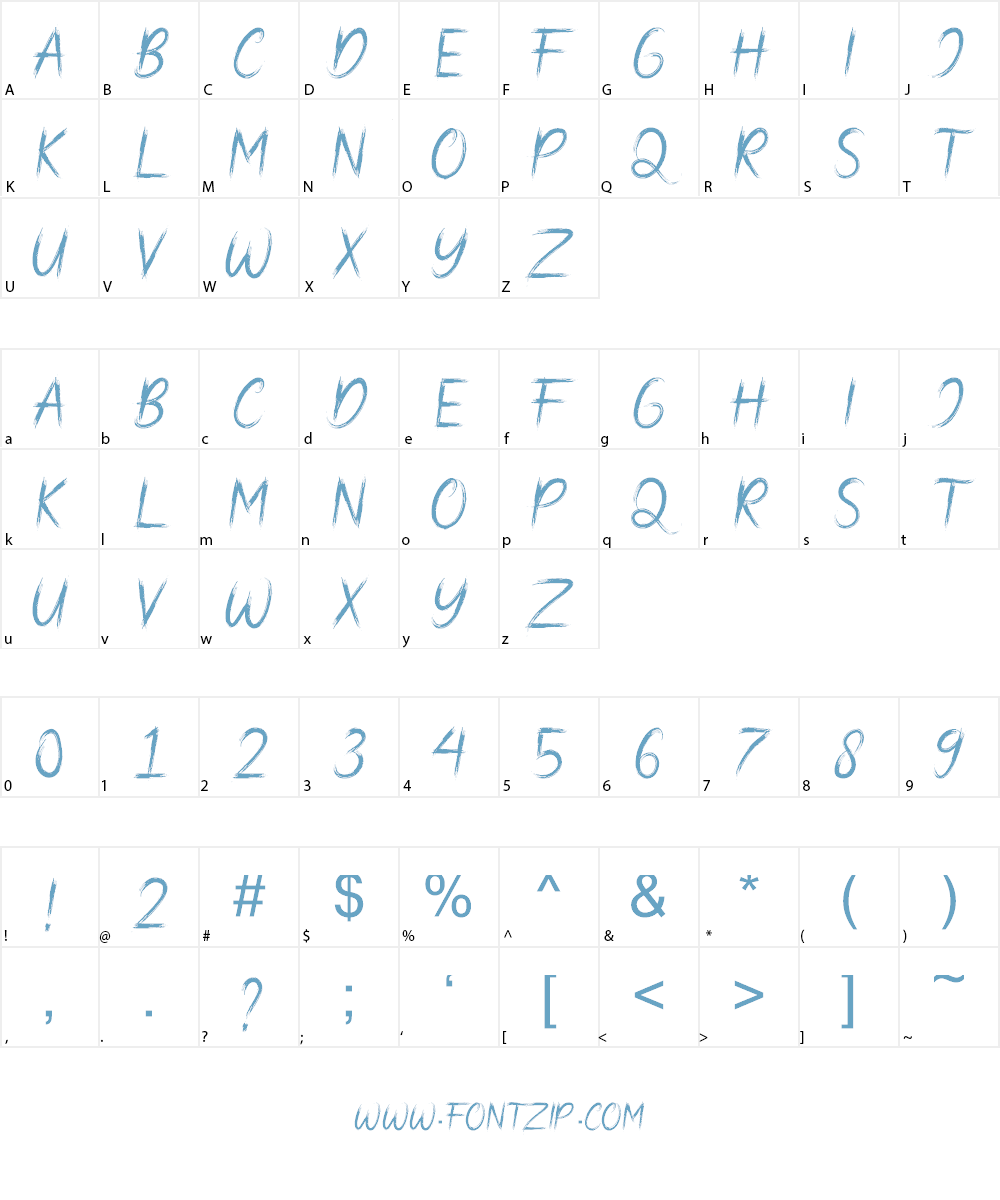
Bad Hunters is a supercharged, street-wise brush font bursting with energy. With its quick strokes and sharp details, Bad Hunter is guaranteed to deliver an unapologetically loud & fast-paced message!